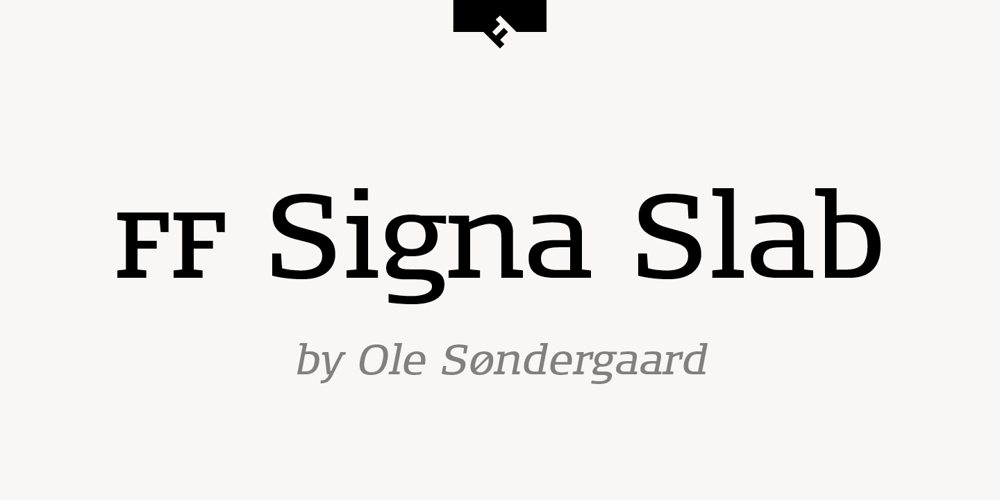
FF Signa Slab Font Family was designed by Ole Berntsen Søndergaard and published by FontFont. FF Signa Slab contains 14 styles and family package options. FF Signa is a typically Danish typeface, rooted in architectural lettering rather than book typography. Originally designed for signage—hence the name—FF Signa is now a typographic family with three widths. All weights include italics, small caps, and several styles of figures. Because of the quality of this “vernacular-lettering-into-typeface” conversion, FF Signa received a Danish Design Prize in 2002. FF Signa is radically different from most sans serif text typefaces that were published during the 1990s. It neither belongs in the “humanist sans” category, nor is it on the list of typefaces based on 19th-century grotesques. Its concise letterforms and a minimum of detail produce clear and harmonious word images. Yet its proportions are classical, and the underlying geometry has been subtly adjusted in order to create letterforms which are at once interesting, harmonious, and contemporary. These features make FF Signa pleasant for reading, even at very small sizes. The typeface has developed into a versatile family, with Condensed, Extended, and Correspondence versions. Later on Signa Serif, Stencil variants and a Signa Slab family added even more versatility. The resulting FF Signa type system may be used for corporate identities, brochures, magazines, communication, books, and on-screen publications.